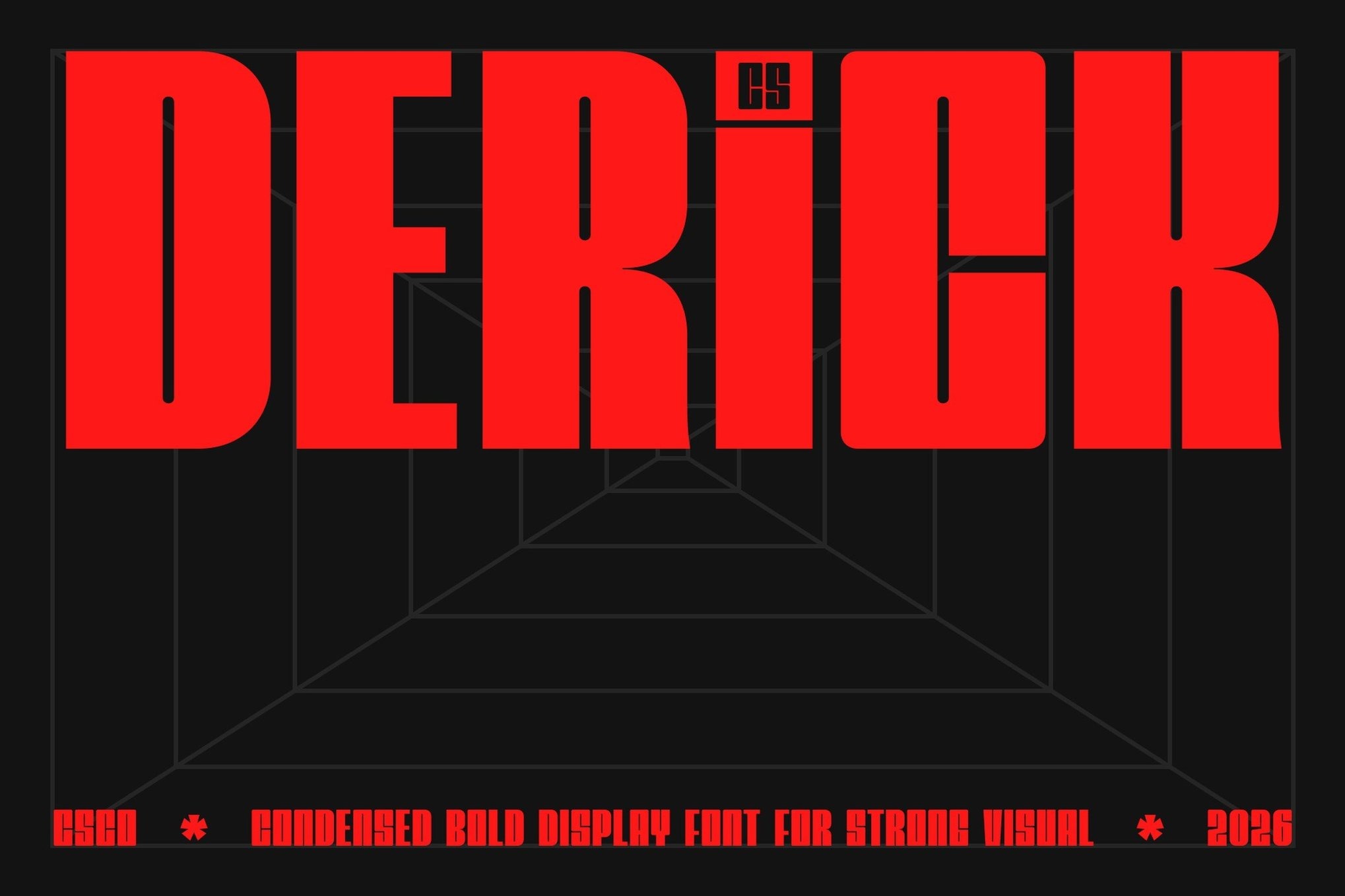
Derick – Bold Condensed Font
Derick – Bold Condensed Font is a distinctive and expressive font crafted to bring personality, structure, and creative energy into your projects. CS Derick – Bold Condensed Display Font: Where Maximum Impact Meets Modern Precision Bold Condensed Display Font with Strong Contemporary Character This is a bold condensed display font featuring tall, thick letterforms that create a commanding and modern visual presence. Its condensed proportions maximize impact while efficiently utilizing space, allowing headlines and display text to stand out with exceptional confidence and clarity. The bold construction ensures every word captures attention instantly.
Clean Structure with Professional Appeal Designed with clean lines and a compact structure, this font delivers a refined appearance that balances strength with readability. Its streamlined forms create a polished, contemporary aesthetic that remains highly legible across large-format applications, making it a dependable choice for professional branding and high-impact display typography.
Confident Style for Modern Communication Combining bold weight with condensed geometry, this font projects authority, precision, and modern sophistication. Its versatile design adapts effortlessly to a wide range of creative applications, offering a strong typographic voice that enhances visual hierarchy while maintaining a sleek and contemporary look.
Perfect for Headlines, Posters, and Advertising Perfect for headlines, posters, logos, packaging, editorial layouts, advertising campaigns, magazine covers, signage, and contemporary visual identities. Its fusion of bold condensed construction, modern proportions, and professional clarity makes it ideal for projects that demand maximum visual impact without sacrificing readability.